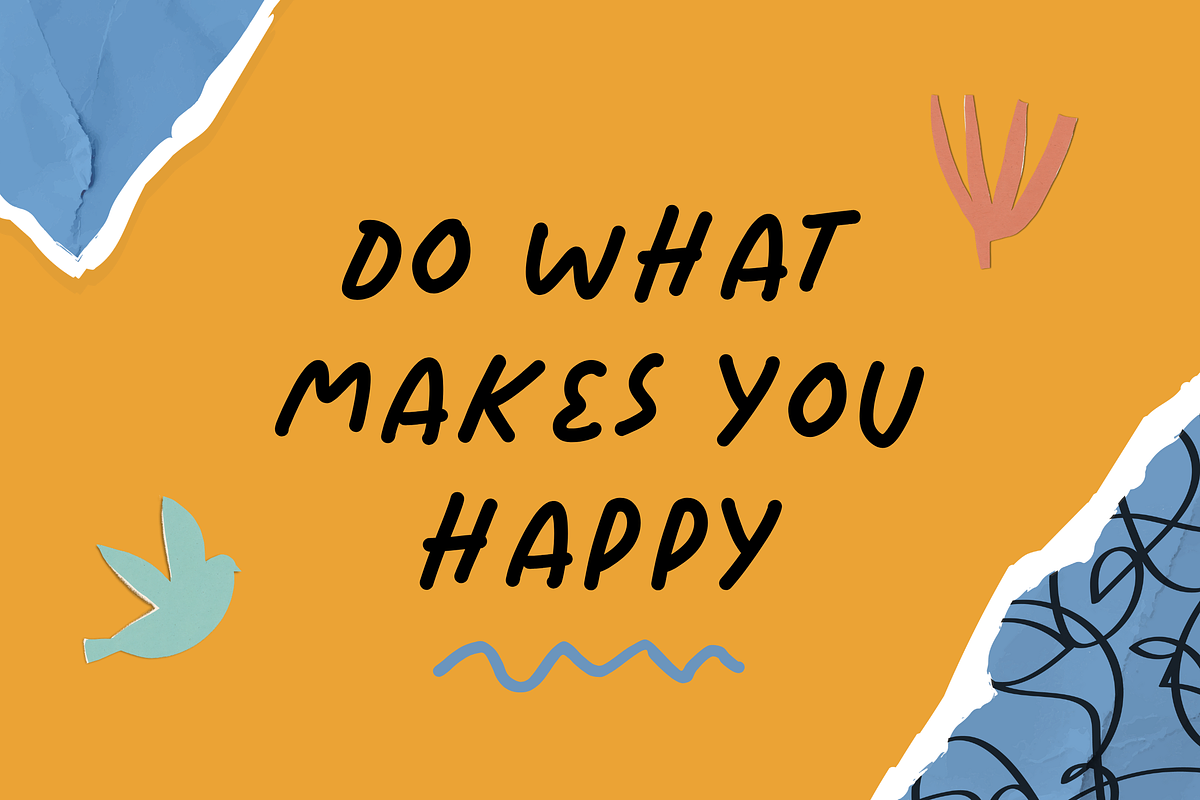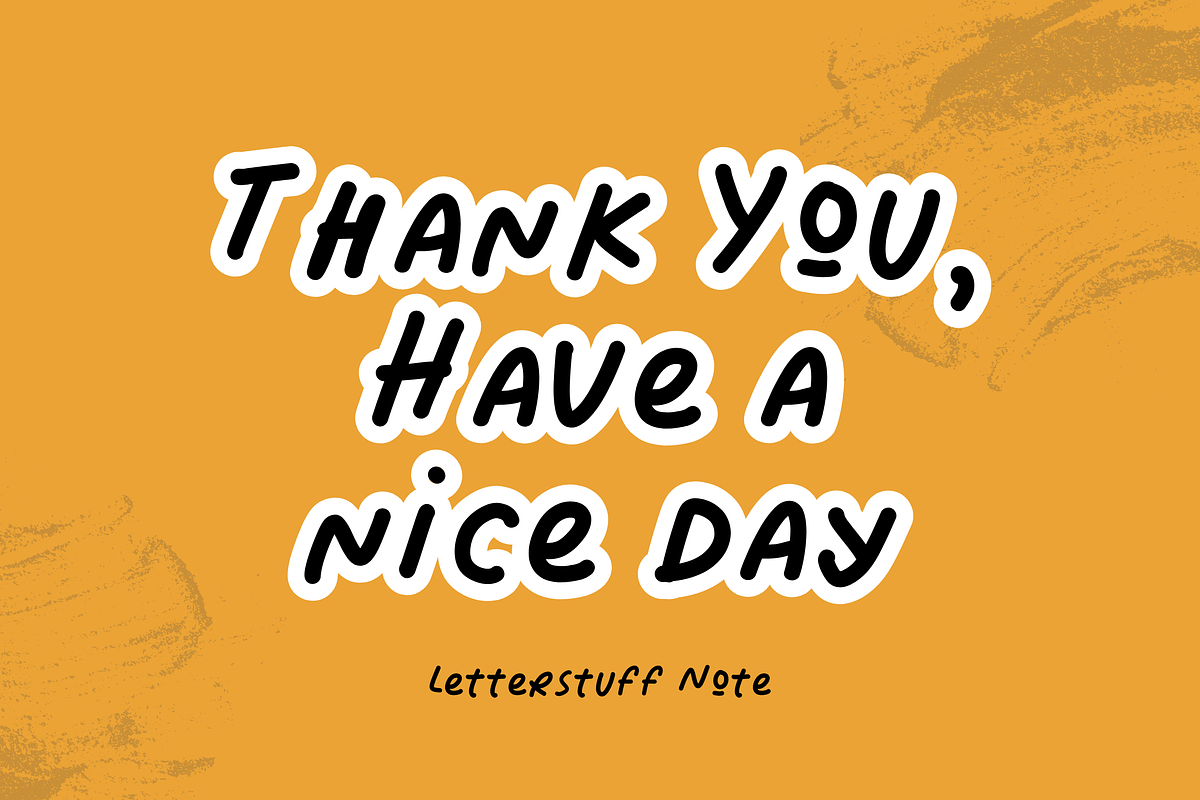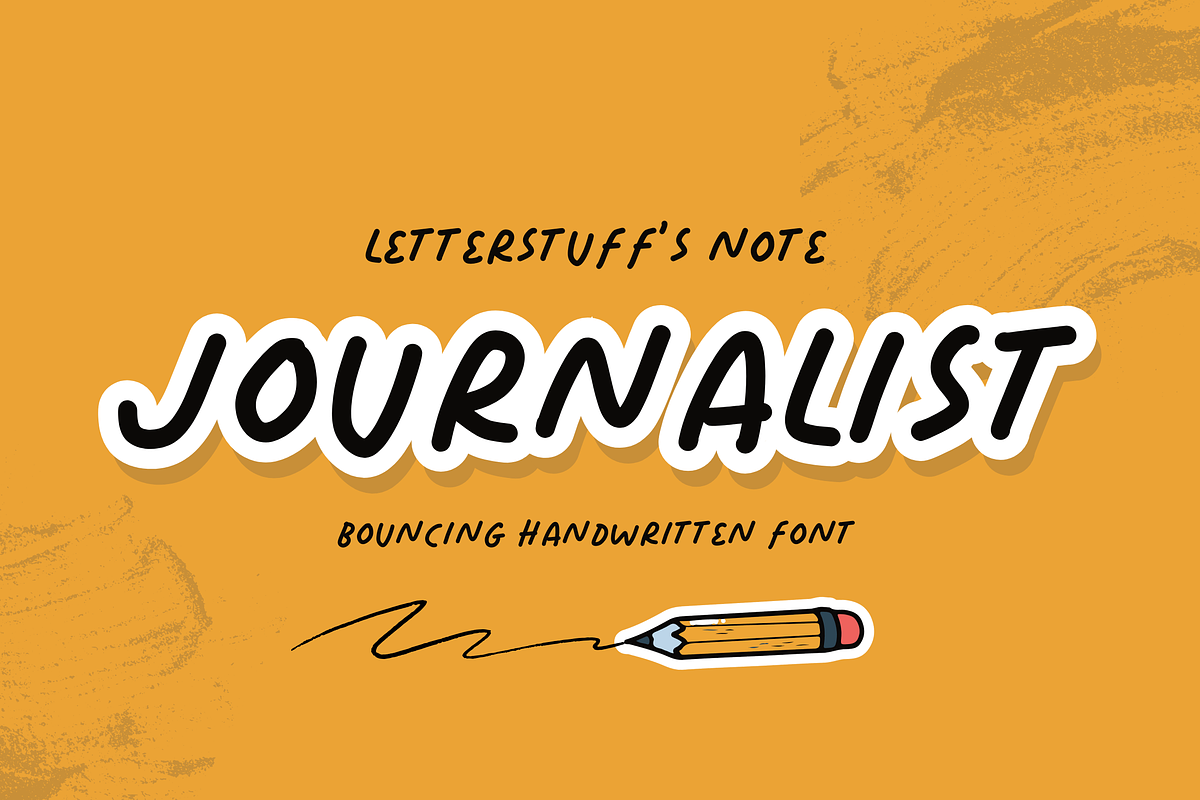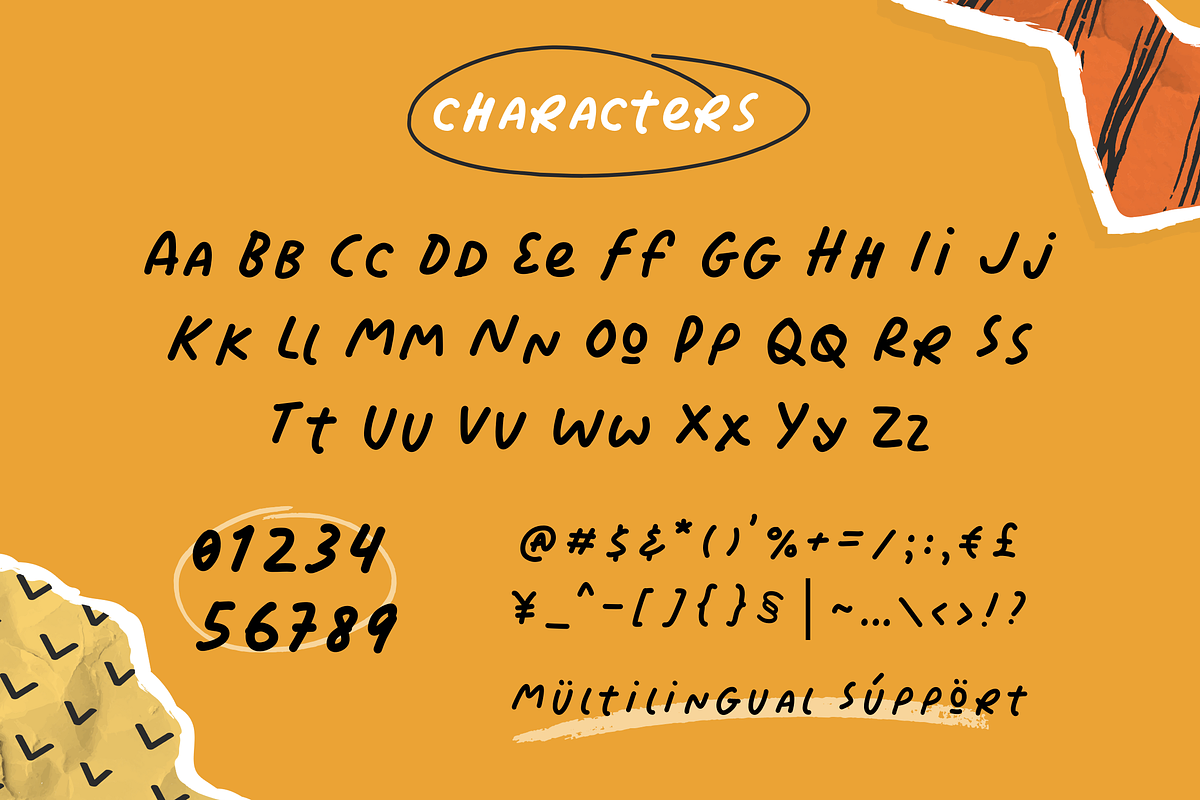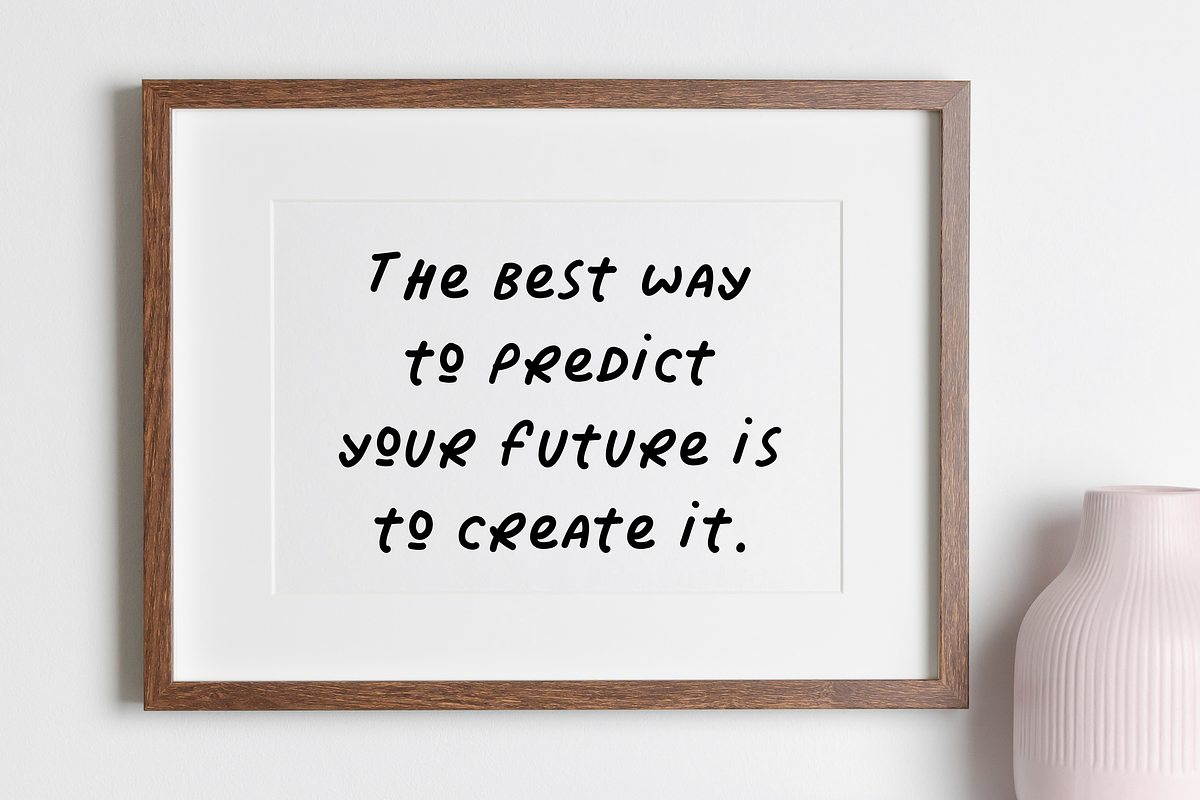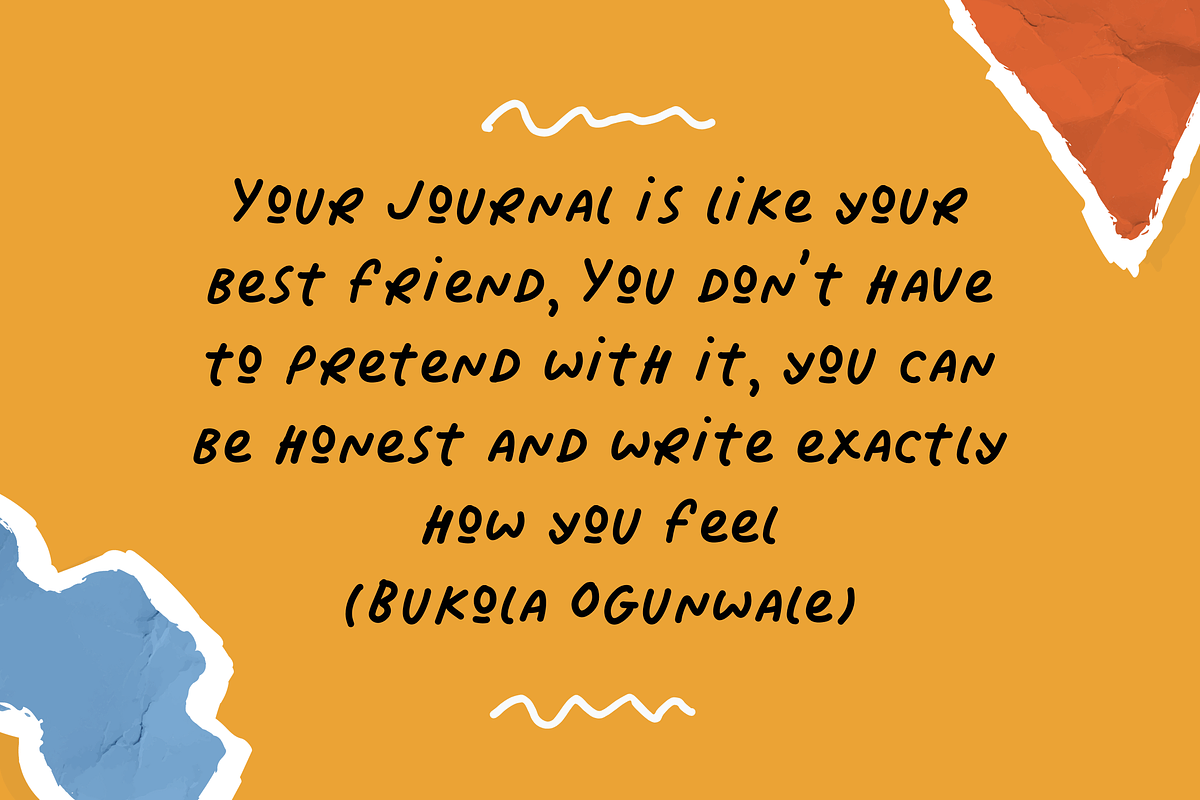
Journalist
Introducing Journalist Font: A dynamic fusion of bouncing handwritten style and multilingual support. Crafted for the modern digital landscape, Journalist Font brings fluidity and charm to your text, capturing the essence of a seasoned journalist's pen strokes. Its versatility extends beyond borders with comprehensive multilingual characters, ensuring seamless communication across diverse audiences and platforms.
Perfect for editorial content, digital newsletters, and social media graphics, Journalist Font shines with optimal legibility on screens of all sizes. Embrace expressive typography and elevate your digital storytelling with Journalist Font—where every word resonates globally. Download now and unleash the power of multilingual elegance in your designs. #JournalistFont #ExpressiveTypography
- Numeral & punctuation
- Multilingual characters support